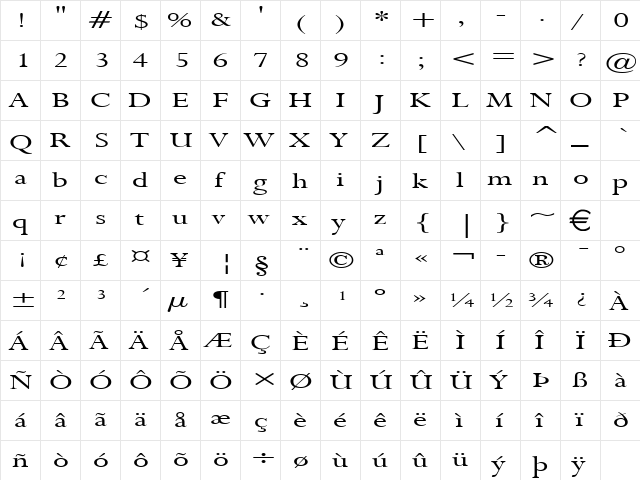
RapidExtended Normal
Design Context for RapidExtended Typeface
RapidExtended is a composed and adaptable typeface that performs quietly and consistently across a wide range of design contexts.